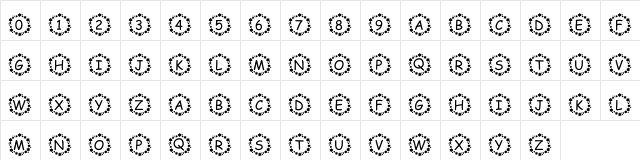
pf_surrounded by stars Regular Font Preview
pf_surrounded by stars Regular
Design Context for pf_surrounded by stars Typeface
pf_surrounded by stars softens its letterforms with rounded terminals, giving it an approachable, friendly quality that works well in consumer-facing and digital contexts.
A natural fit for tech startups, health and wellness brands, children's products, and friendly consumer apps.
Font Pairing: Pairs well with a rounded or humanist sans for body copy, maintaining the friendly tone without relying on pf_surrounded by stars to carry extended reading.
Pro Tip: Pair pf_surrounded by stars with a geometric sans for a balanced system — the rounded softness works as a warm counterpoint to harder-edged companions.